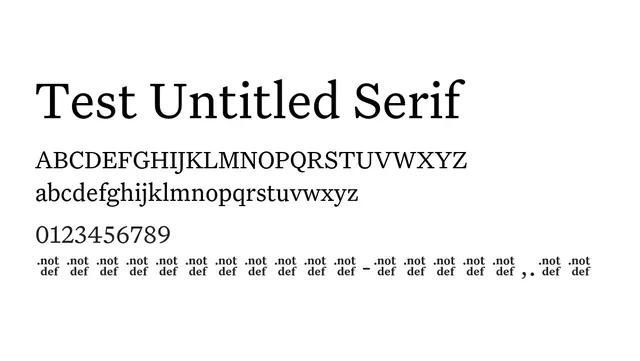
Test Untitled Serif
A transitional serif with contemporary proportions and clean serifs, balancing traditional typography with modern sensibilities.
Versatile for editorial design, premium publications, and sophisticated branding. Works equally well for body text and headlines, making it an excellent choice for cohesive typographic systems.
Pair with Untitled Sans for a unified type family, or combine with geometric sans-serifs like Montserrat for classic editorial layouts.